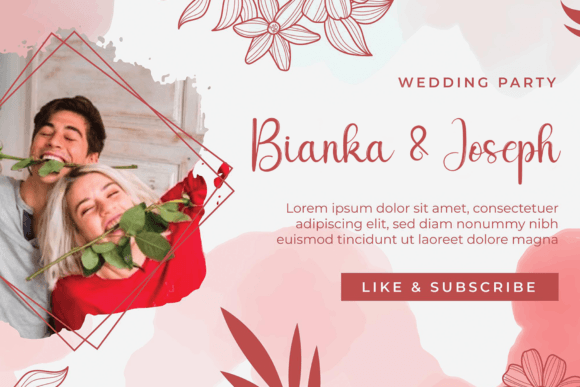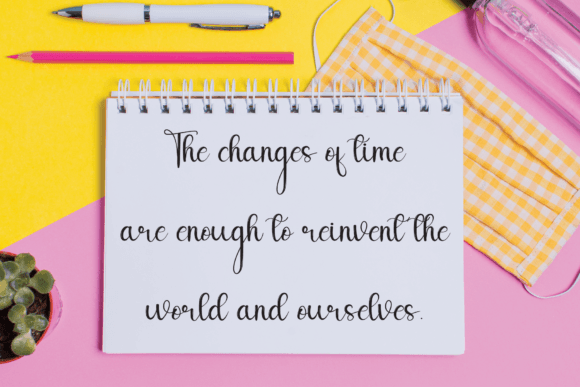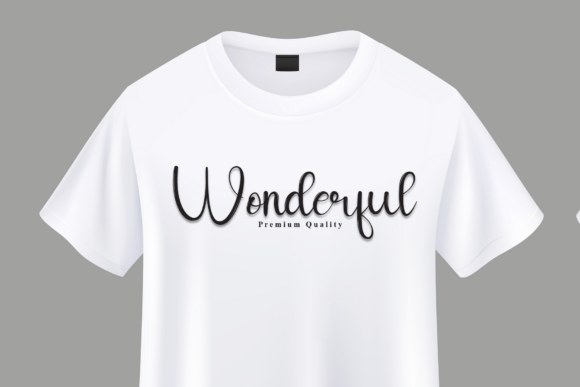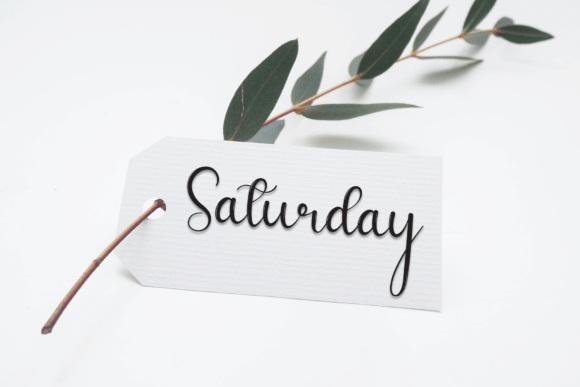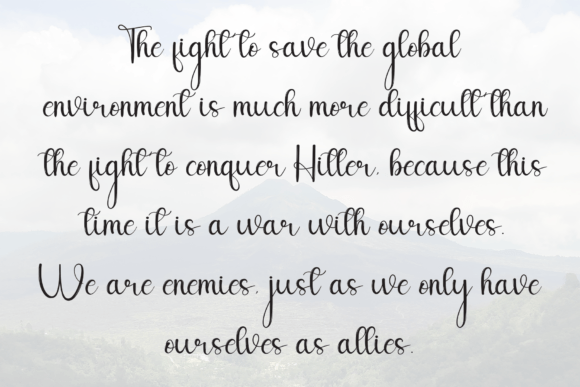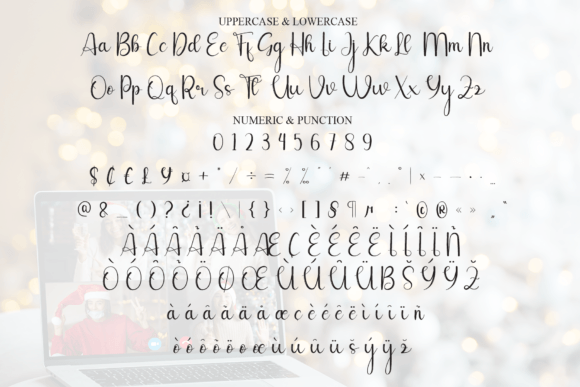
Introduction to Live Christmas Font
Introducing a charming, handcrafted display font – exquisite in its sweetness and affable warmth.
Brimming with fun and vitality, this font breathes life into wedding invitations, celebratory cards, or any other design endeavor seeking a hint of delightful whimsy Its friendly demeanor complements any creative expression, transforming mere words into endearing messages that captivate and charm.
Live Christmas Font offers exceptional quality and versatility, making it a valuable addition to your design toolkit. Whether you’re creating for personal projects or commercial use, Live Christmas Font delivers professional results.